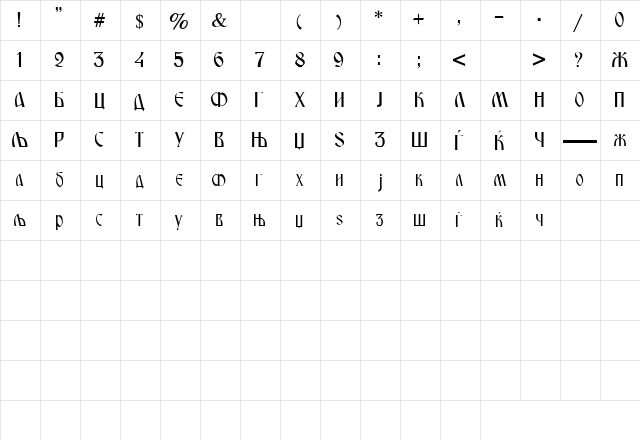
Miroskir2 Regular
Design Context for Miroskir2 Typeface
Miroskir2 takes a measured approach to typography — its balanced proportions and neutral character make it a reliable workhorse for both digital and print work.
Pro Tip: Use Miroskir2 in both headline and body roles to test its range before committing to a single application.